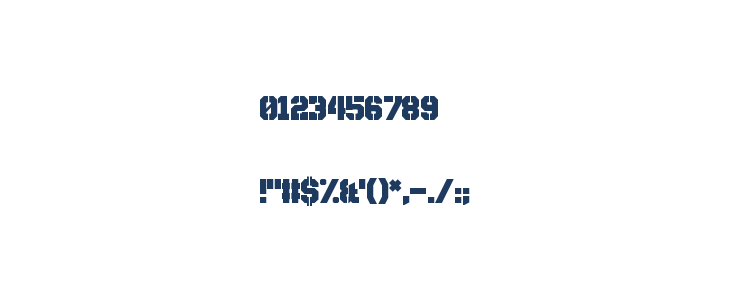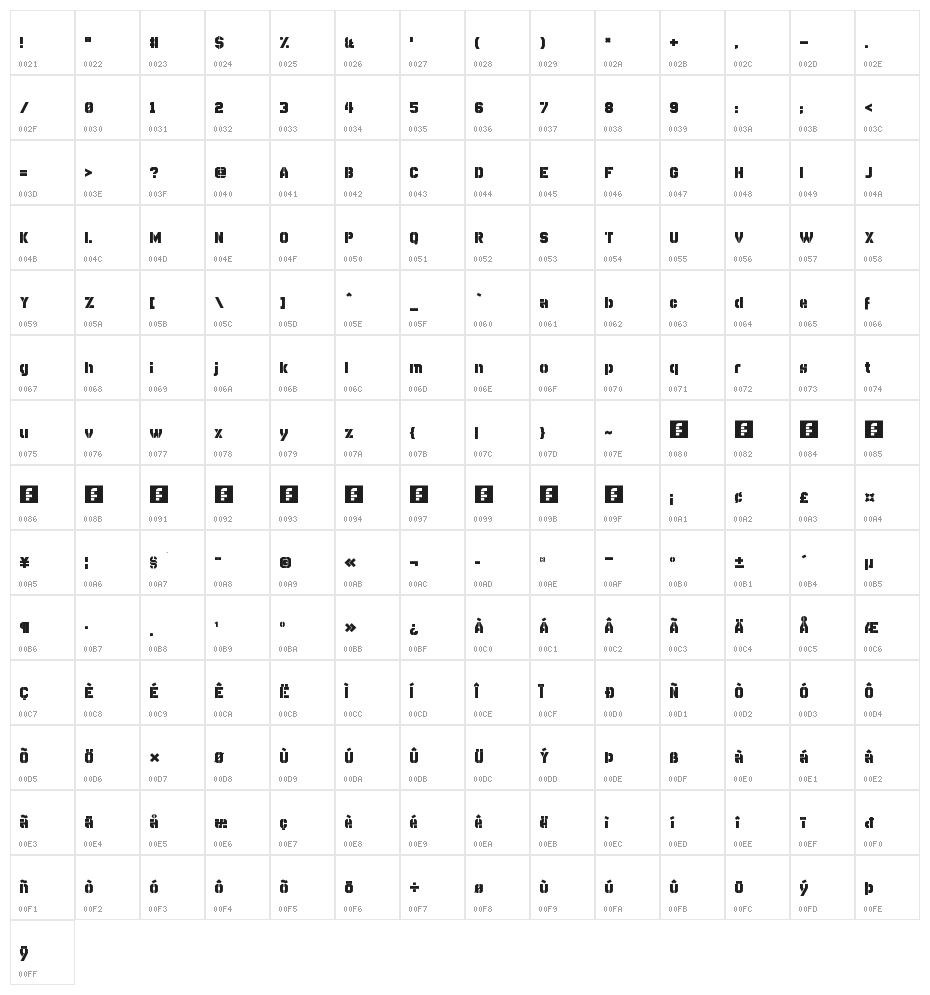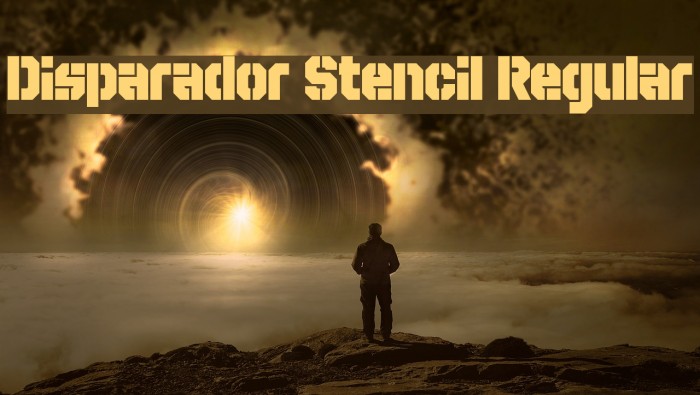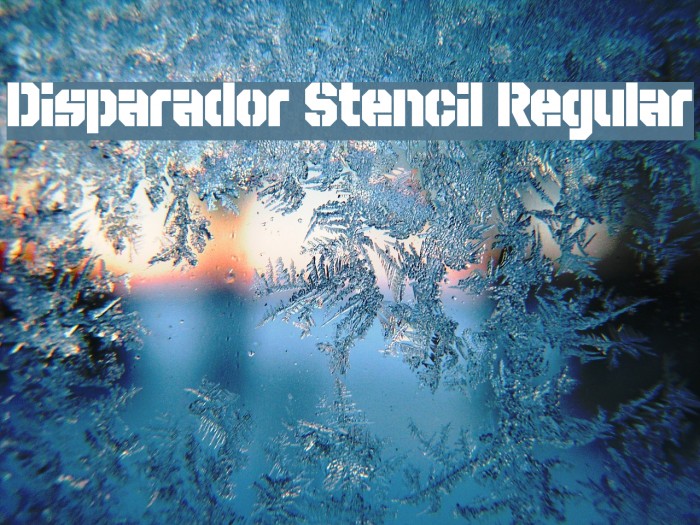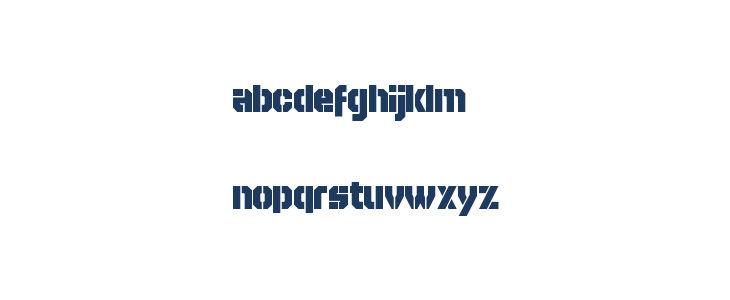
Disparador Stencil Regular Font
Disparador Stencil Regular Description
This font features a bold, stencil-like design with distinct cutouts in each character, giving it a rugged and industrial appearance. The uppercase and lowercase letters maintain a consistent style, with sharp angles and straight lines that create a sense of strength and stability. The numbers and special characters follow the same aesthetic, ensuring uniformity across all glyphs. The font's boldness and unique cutout style make it highly legible and eye-catching, suitable for various design applications where a strong visual impact is desired.
| Overall Style | Industrial, Rugged |
| Proposed Projects | Ideal for military-themed designs, posters, signage, branding projects, and any creative work requiring a bold, impactful typeface. |